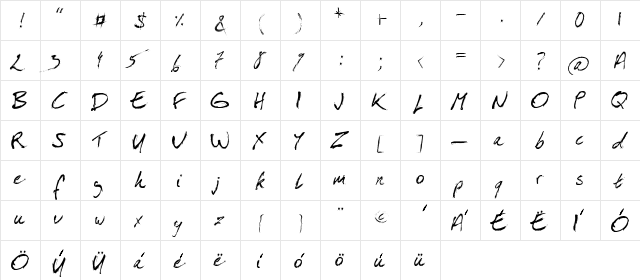
Isa Por Es Homou Regular
Design Context for Isa Por Es Homou Typeface
Isa Por Es Homou is a composed and adaptable typeface that performs quietly and consistently across a wide range of design contexts.